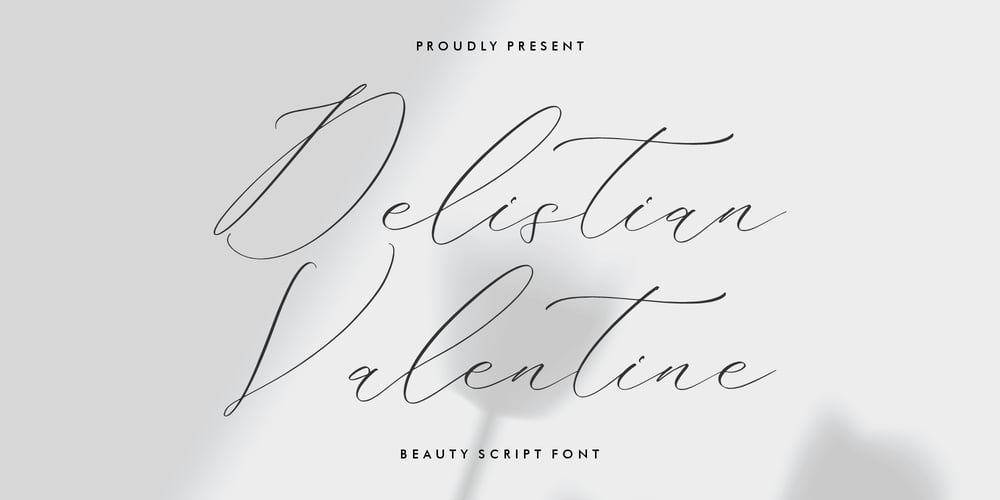
Delistian Valentine
Delistian Valentine font
Delistian Valentine Font Family was designed by Heru Utama Putra and published by Letterena Studios. Delistian Valentine contains 2 styles and family package options. Delistian Valentine Font is a charming and romantic script and handwritten typeface. With its delicate strokes and lovingly crafted curves, it adds an enchanting touch to Valentine’s Day cards, wedding invitations, and any project seeking to express heartfelt emotions with elegance and grace.